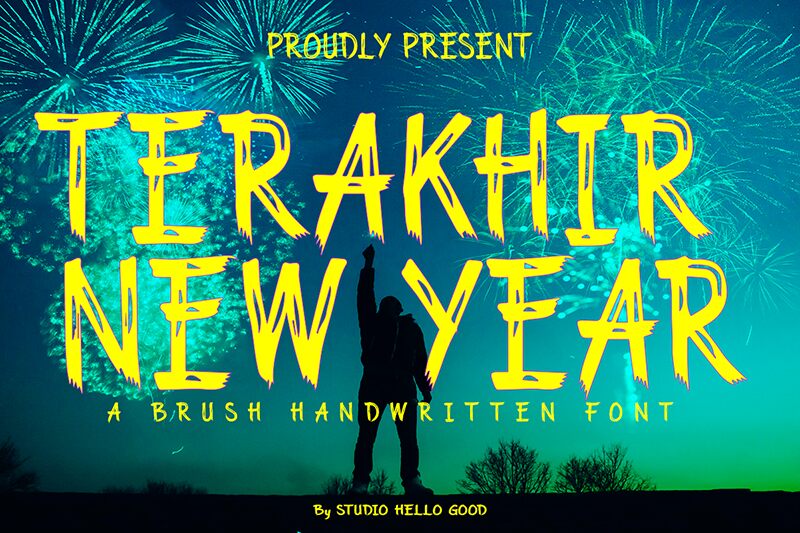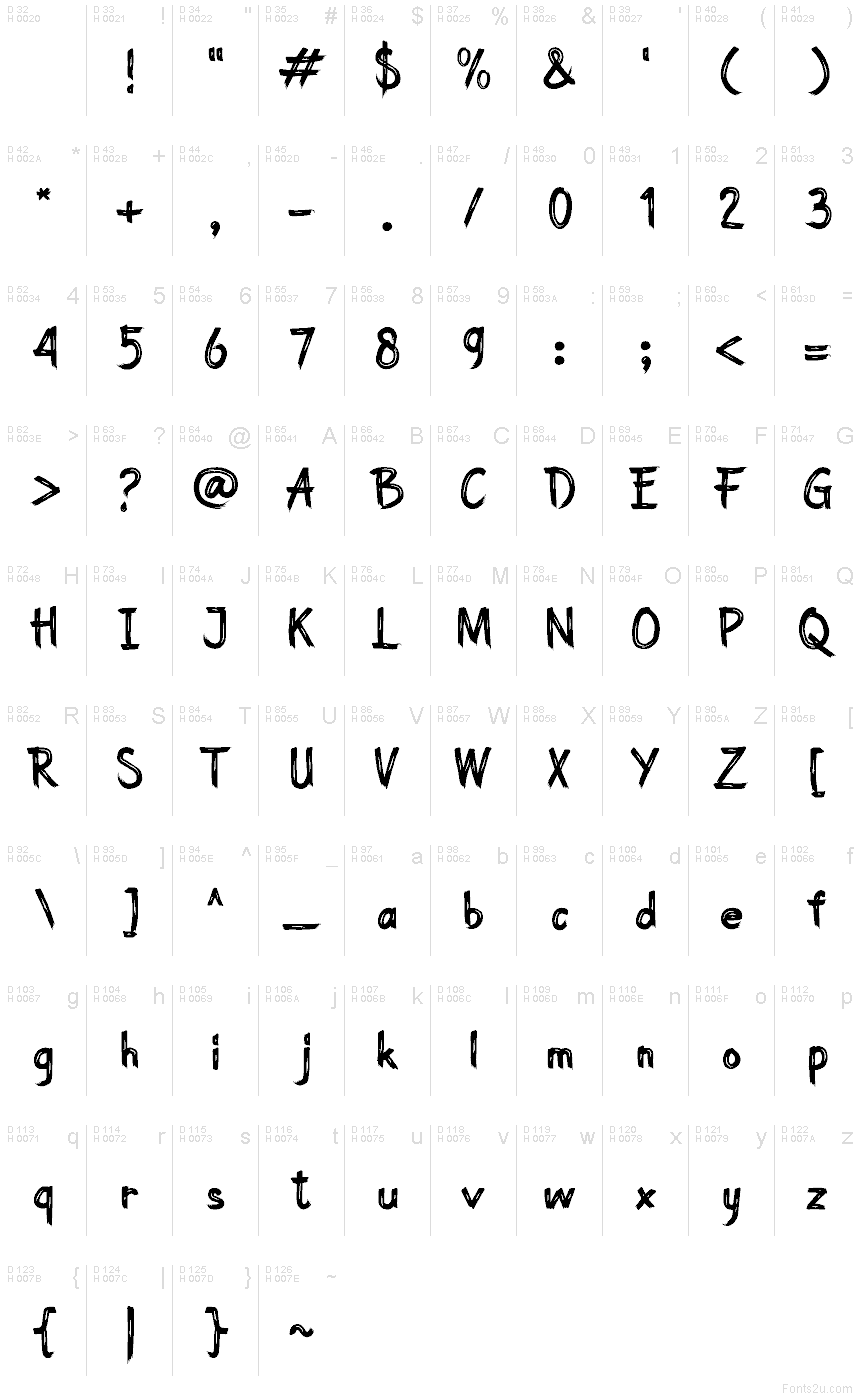
Terakhir New Year
Terakhir New Year font by Studio Hello Good is a free brush typeface. Its signature look comes from rough, dry-brush strokes that leave inky ridges and splatters, giving each word a hand-painted pop without turning messy. Letters lean with a lively slant and generous spacing, so headlines stay readable while still feeling spontaneous and festive.
Using Terakhir New Year, you get instant energy for party invitations, seasonal posters, social media promos, YouTube thumbnails, packaging, and pop-up signage. The textured rhythm draws the eye first, then the open forms make the message stick. This free font pairs naturally with a clean geometric sans for body copy—set the brush large for headlines and keep the sans small and tidy underneath.